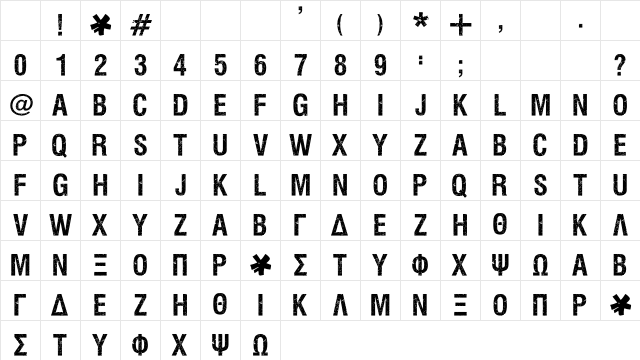
Complete VIPER NORA Regular glyph index. Displaying only characters natively supported by VIPER NORA Regular font.
VIPER NORA is a composed and adaptable typeface that performs quietly and consistently across a wide range of design contexts.